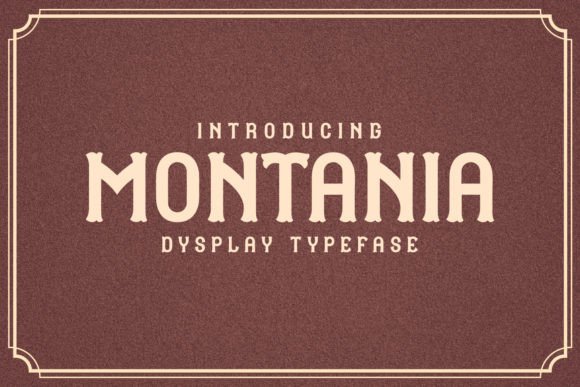
Embrace the Essence of Timeless Charm: Introducing Montania Font, the Epitome of Vintage Elegance
Step into a world of timeless elegance with Montania Font, a classic display typeface that captivates with its vintage allure and old-fashioned charm. Designed by the renowned typelinestudio, Montania is a versatile font family that breathes life into your creative endeavors, adding a touch of nostalgia and sophistication wherever it's applied.
Unleash Your Culinary Inspiration with Montania: The Perfect Font for Food Packaging
Indulge your senses in the delectable world of culinary delights with Montania, the ultimate font for food packaging. Let your products exude an air of sophistication and tradition, capturing the essence of handcrafted quality and artisanal expertise. Montania's distinctive characters dance across labels and packaging, inviting customers to embark on a sensory journey filled with warmth and nostalgia.
Craft Enduring Impressions with Montania: A Versatile Masterpiece for Headlines and Posters
Elevate your headlines and posters to new heights with Montania, a font that commands attention and leaves a lasting impression. Its striking presence adds depth and character to any text, whether it's a captivating headline that draws the eye or a thought-provoking poster that sparks conversations. Montania's versatility shines through, adapting seamlessly to a multitude of applications, from print to digital media.
Evoke a Sense of Nostalgia with Montania: Timeless Beauty for Logos and Packaging
Create logos and packaging that resonate with a sense of nostalgia, capturing the essence of heritage and tradition with Montania. Its vintage charm lends a timeless appeal to your brand identity, evoking a sense of familiarity and trust. Montania's versatile nature allows it to adapt effortlessly to various design aesthetics, making it an ideal choice for businesses seeking a touch of classic elegance.
Experience the Joy of Seamless Creativity with Montania: A PUA-Encoded Masterpiece
Unleash your creativity without limits with Montania, a PUA-encoded font that grants you effortless access to its full range of glyphs and swashes. Dive into a world of endless possibilities, where intricate details and elegant flourishes come together harmoniously to enhance your designs. Montania's PUA encoding opens up a realm of customization, empowering you to craft truly unique and captivating creations.